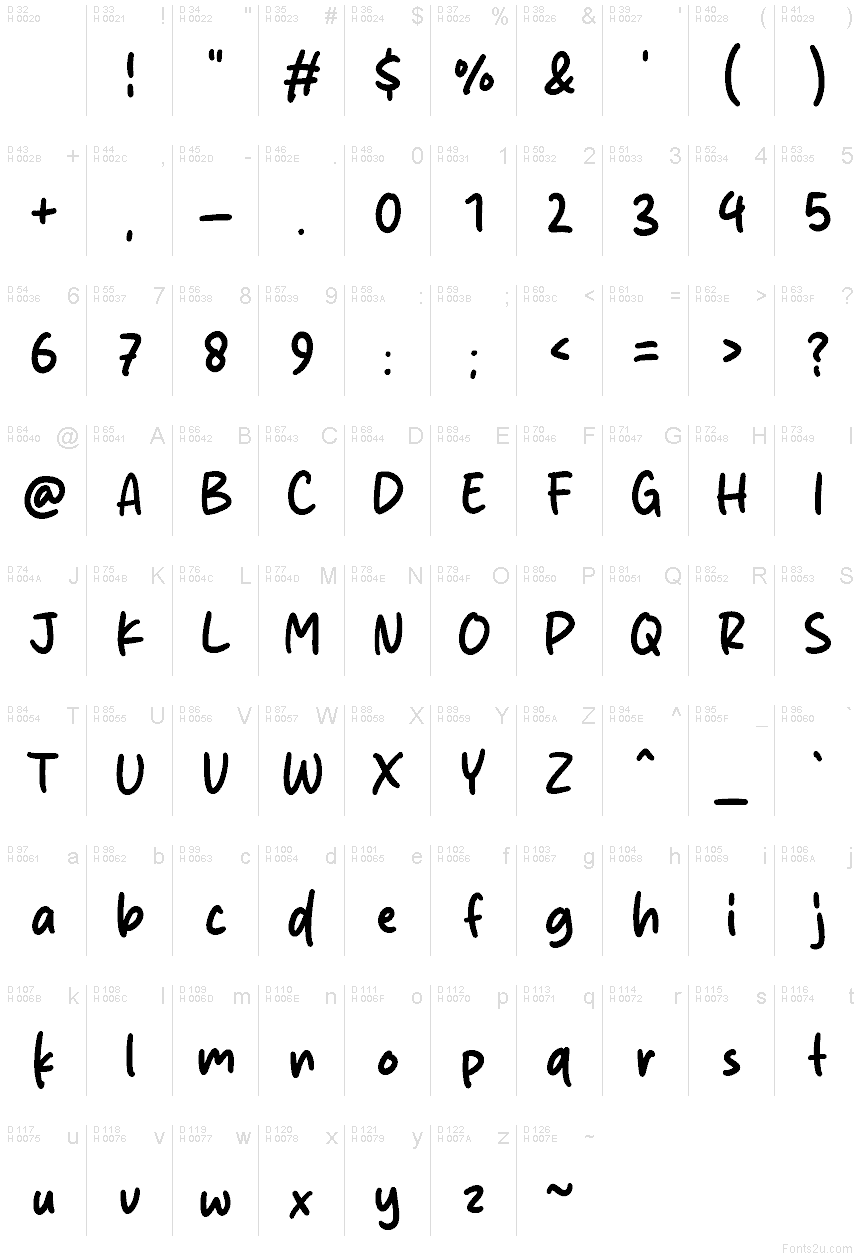
Pink Velvet
Pink Velvet font by MJType is a free handwritten typeface. Thick, inky strokes and softly rounded corners give it that “marker on poster board” warmth while staying tidy and readable. The rhythm is even, the spacing forgiving, so headlines feel bold and friendly without turning messy—a sweet spot most handwriting fonts miss.
Using Pink Velvet, your titles pop on social graphics, cafe menus, packaging, kids’ branding, stickers, event invites, and YouTube thumbnails. Its cushy forms carry energy without shouting, making short phrases feel personable and punchy. This free font shines on colorful backgrounds and textured photos; pair it with a light, clean sans-serif for body copy to keep the message breezy and clear.